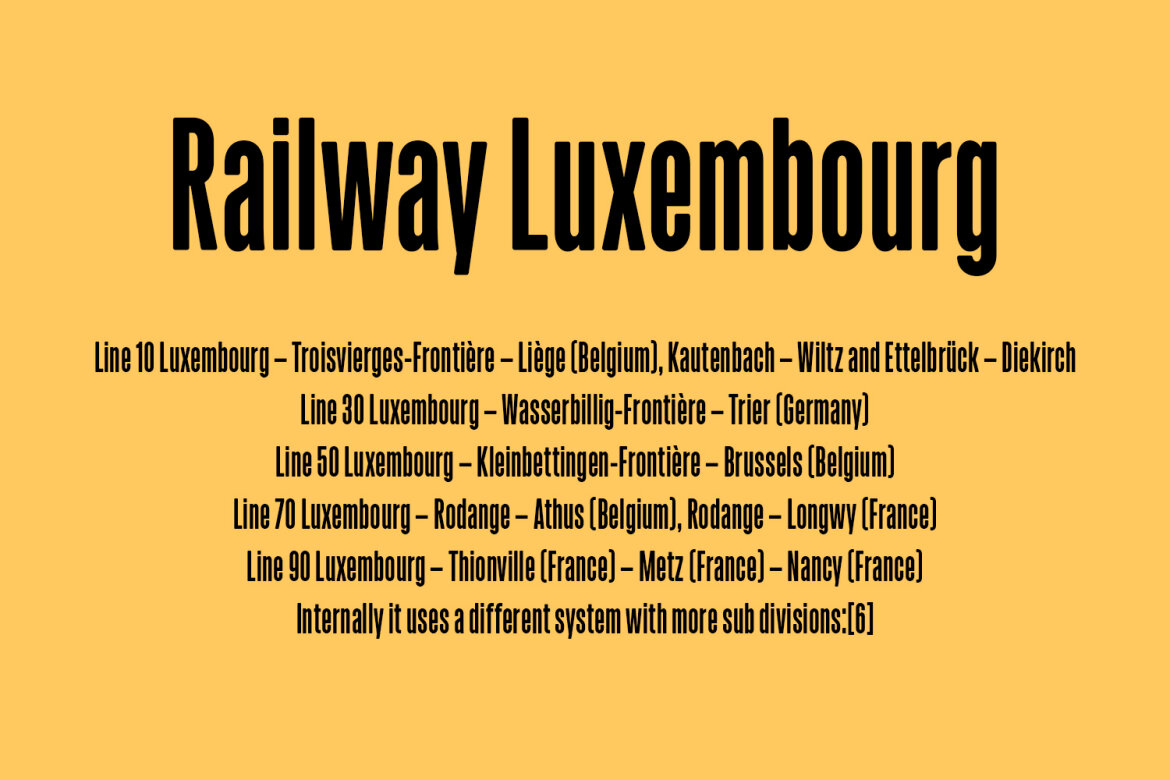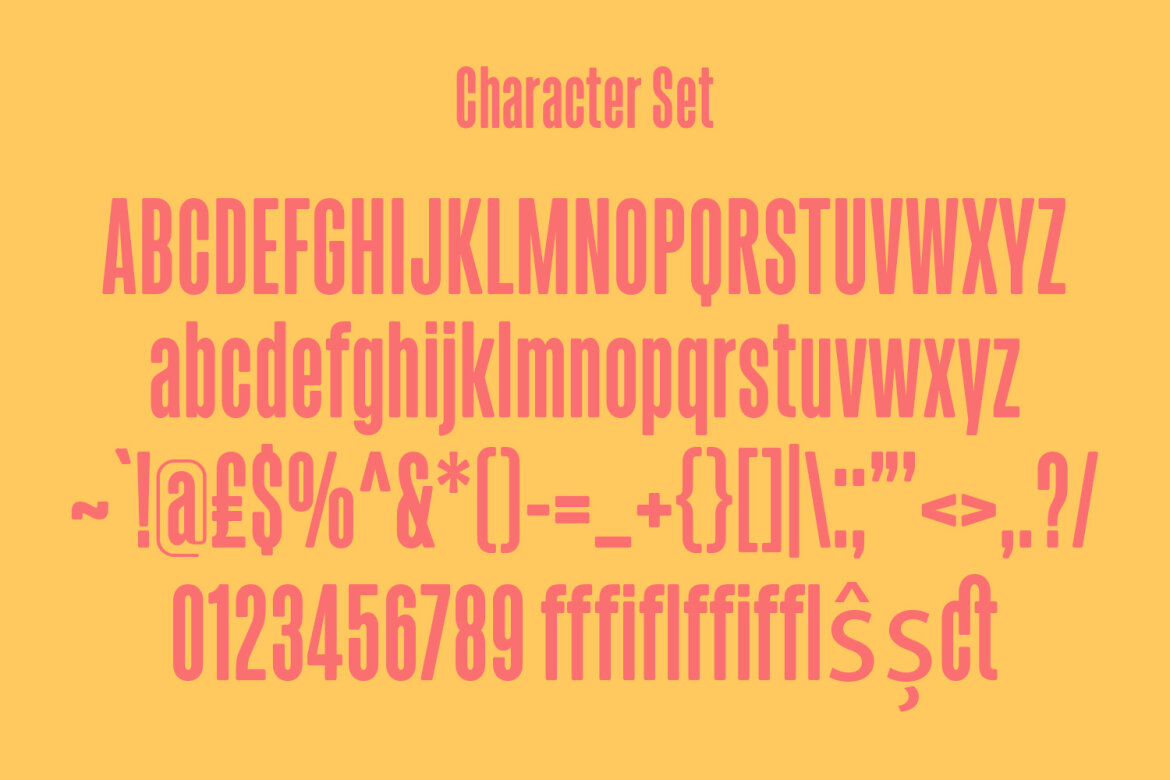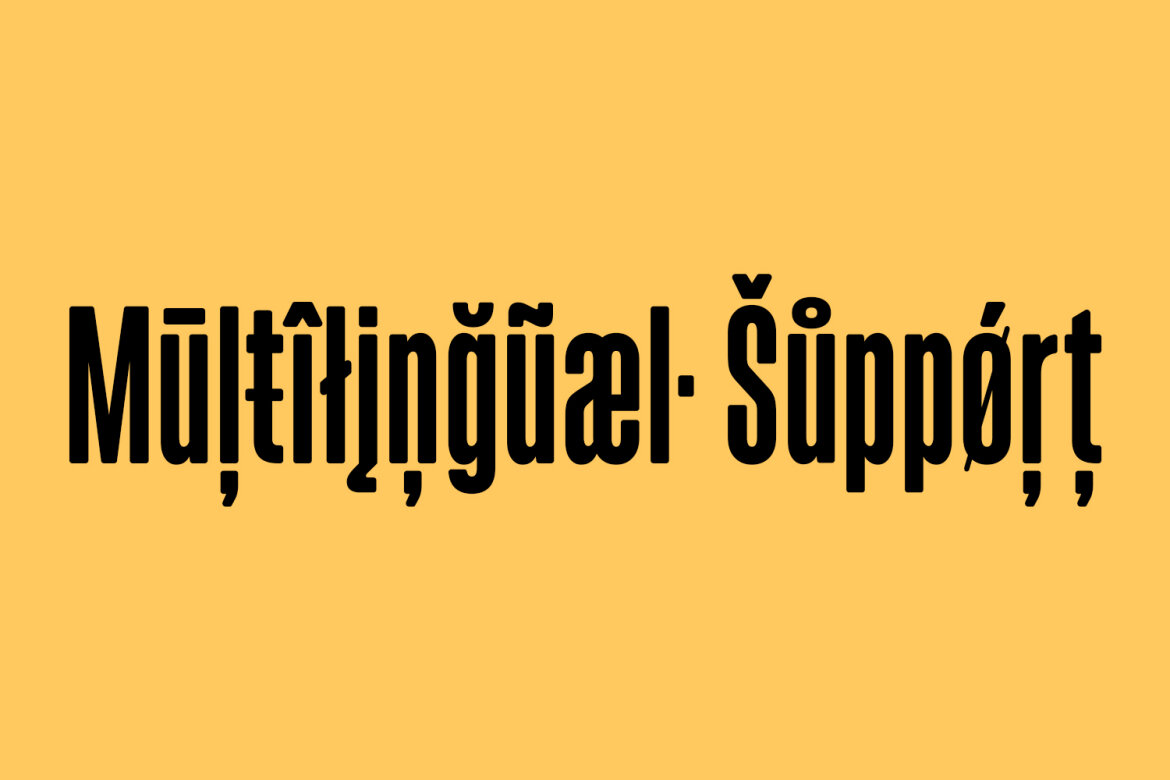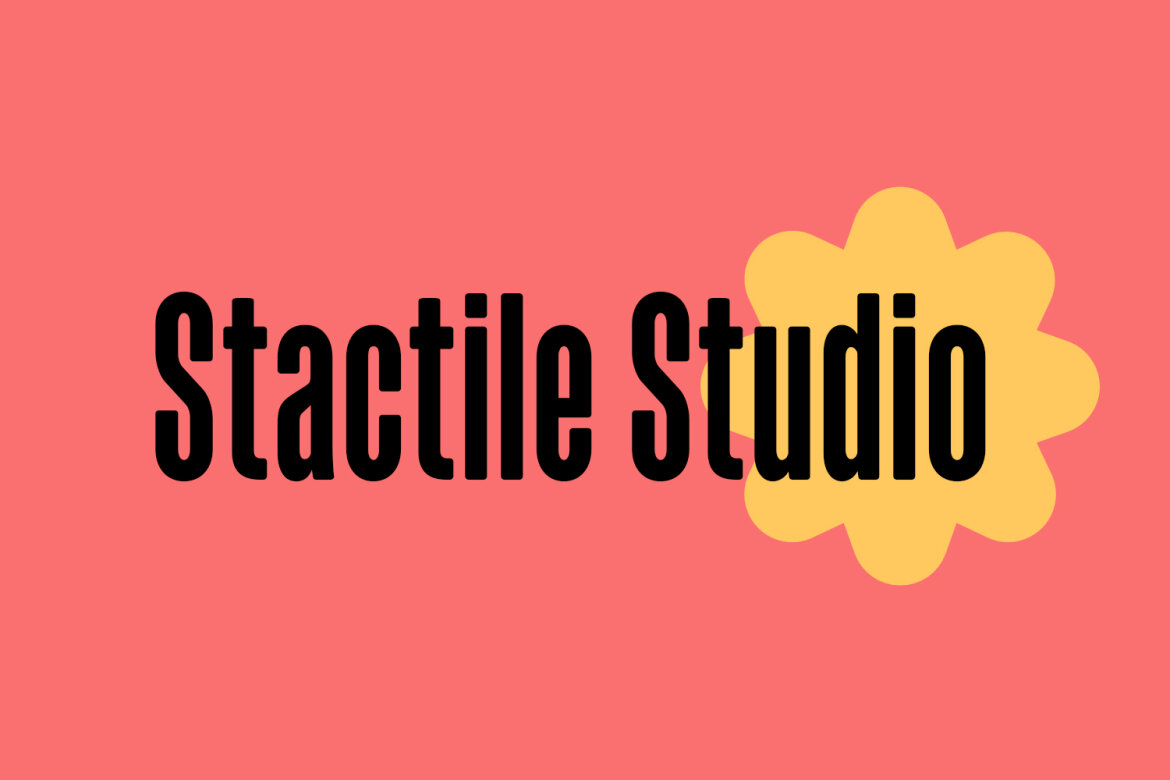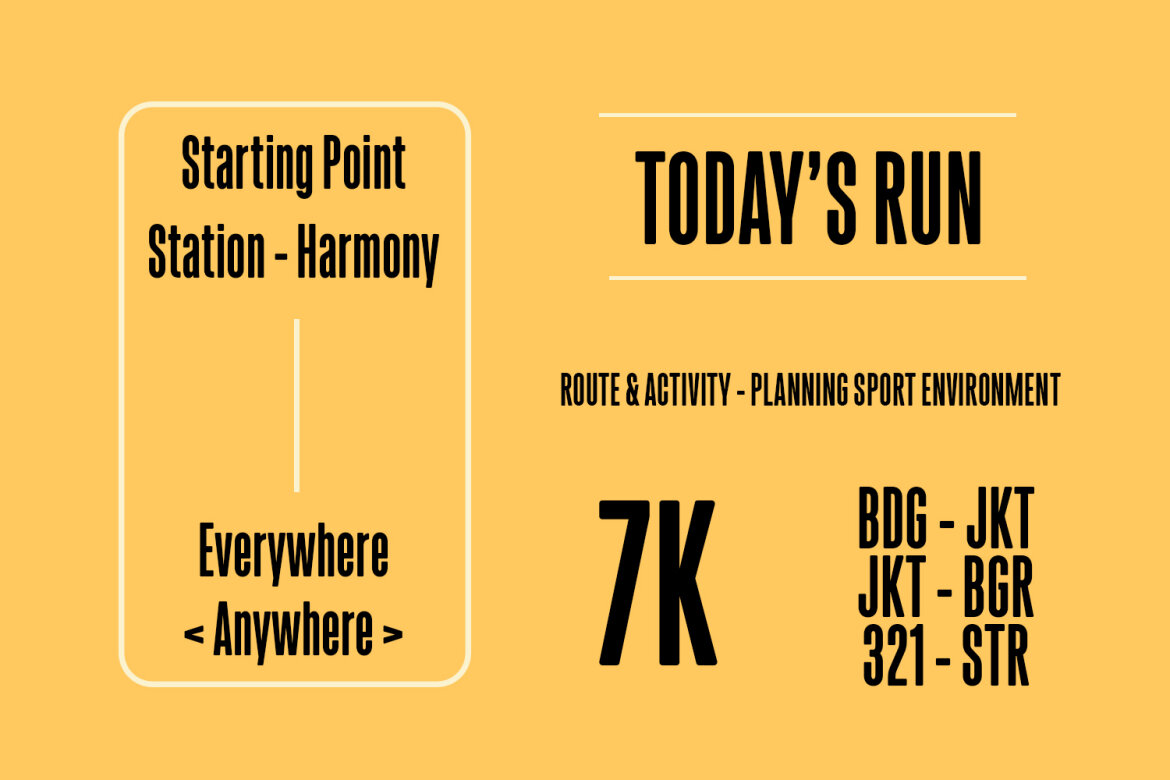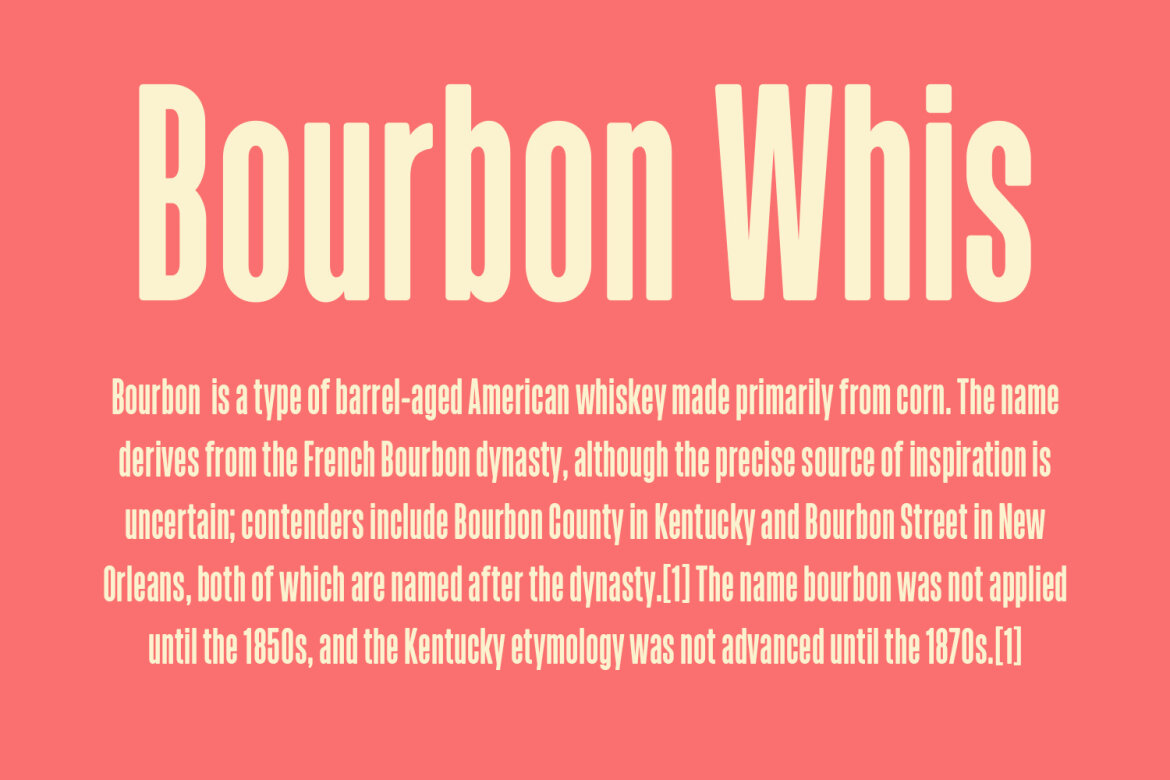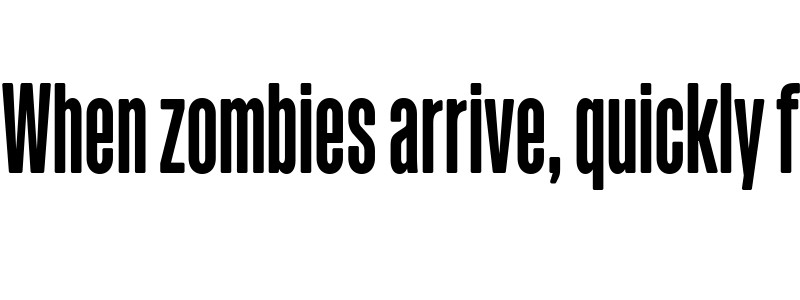
Fectron Condensed Sans FREE Font
Fectron
Fectron is a semi round condensed sans serif font. With semi bold stroke, fun character with a bit of ligatures and alternates. To give you an extra creative work. Fectron font support multilingual more than 100+ language. This font is good for logo design, Social media, Movie Titles, Books Titles, a short text even a long text letter and good for your secondary text font with script or serif. Make a stunning work with Fectron font.